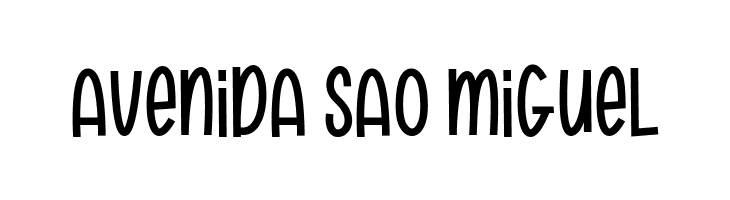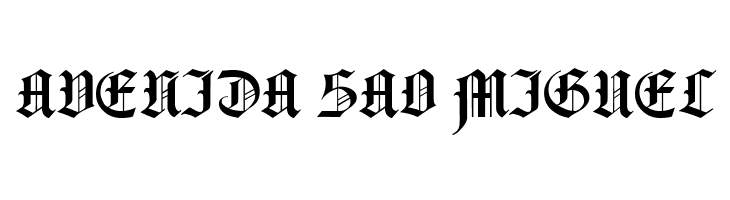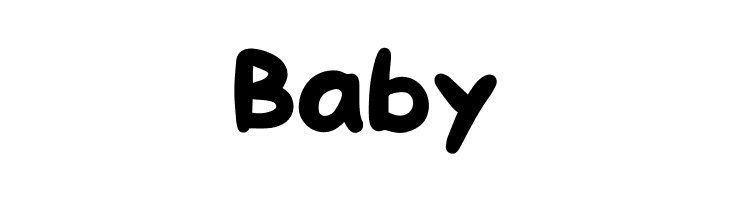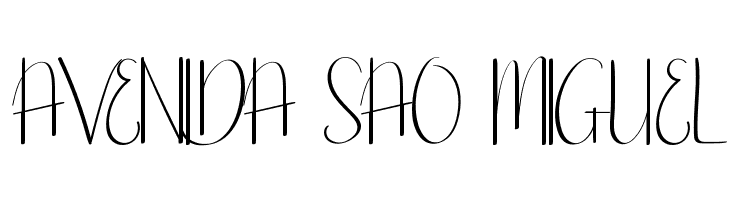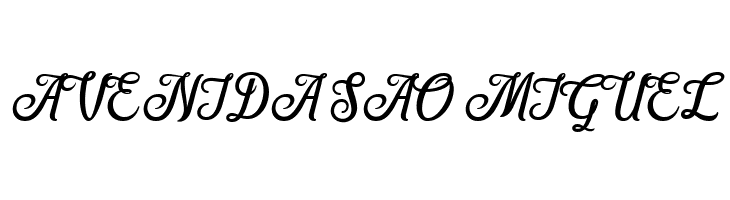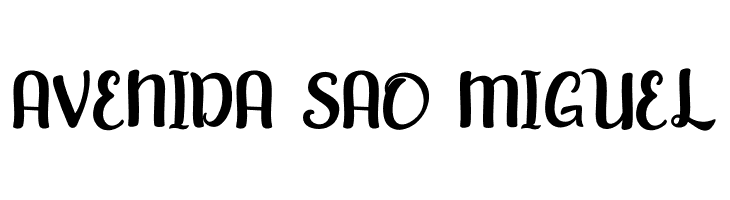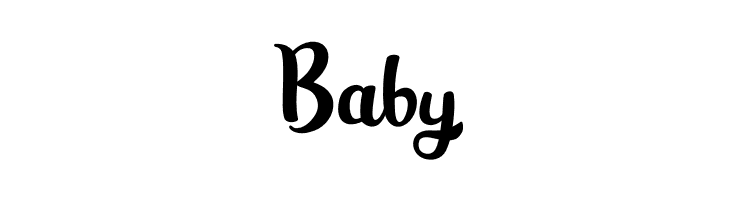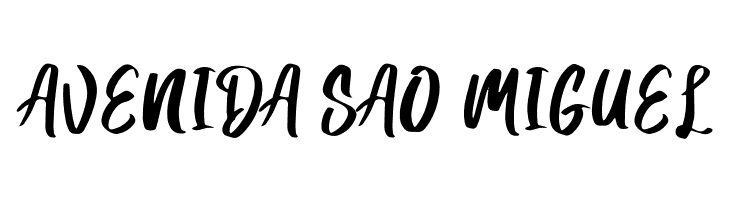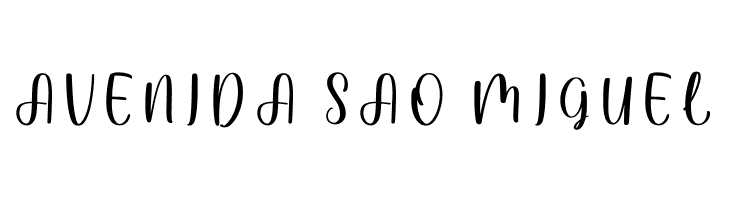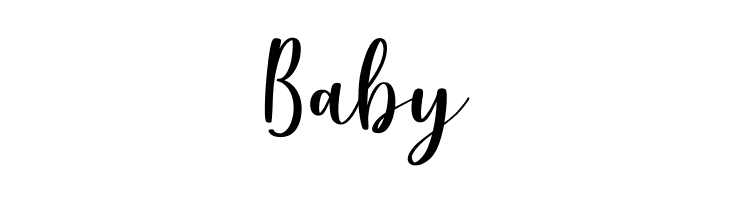
A modern, rounded font with a clean and approachable design.
Bold, rounded characters within black squares for a playful, modern look.
A stylish and elegant script font with flowing, connected letterforms.
A lively handwritten script with a personal, informal touch.
A lively script font with fluid, connected strokes and elegant loops.
A bold, geometric font with a futuristic and digital aesthetic.
A playful, casual handwritten font with smooth, flowing lines.
A clean and elegant font with smooth curves and consistent stroke width.
A playful, hand-drawn font with rounded, bold letterforms.
A playful, handwritten font with a casual and informal style.
A geometric, angular font with a modern and structured design.
A bold, expressive script font with fluid, dynamic strokes.
A bold, expressive handwritten font with fluid, dynamic strokes.
An elegant, cursive script font with fluid, interconnected strokes and a handwritten style.
A playful handwritten font with tall, narrow letterforms and a casual style.
Elegant handwritten script font.
A bold, distressed font with a vintage, rugged appearance.
A whimsical, elegant handwritten font with playful flourishes and dynamic strokes.
A playful, handwritten font with fluid and organic strokes.
A traditional blackletter font with ornate, angular strokes and a gothic aesthetic.
A traditional Blackletter font with bold, angular strokes and ornate details.
A charming script font with a playful, handwritten style.
A bold, slab serif font with a vintage yet modern appeal, ideal for headlines.
A bold, shadowed font with a classic serif touch, perfect for impactful headlines.
A decorative blackletter font with intricate, angular letterforms and historical elegance.
A bold, geometric font with strong lines and uniform height.
A bold, rough-textured font with a vintage, handcrafted feel.
A playful, rounded font with bold, smooth curves and a friendly style.
A bold, playful script font with a handwritten feel and rounded edges.
A decorative blackletter font with bold, angular strokes and boxed characters.